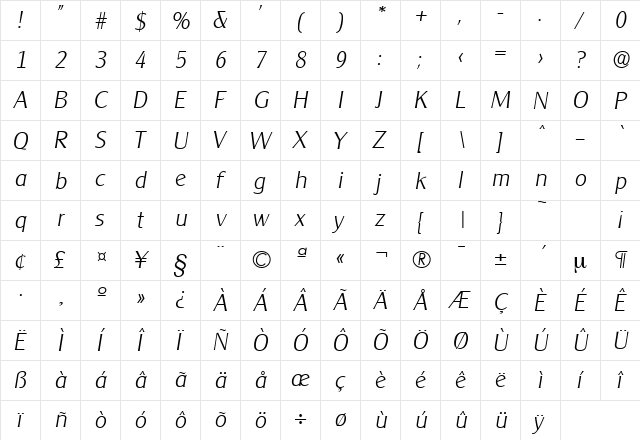
Cleargothic-Serial-ExtraLight RegularItalic Font Preview
Design Context for Cleargothic-Serial-ExtraLight Typeface
Cleargothic-Serial-ExtraLight has the quiet confidence of well-executed sans-serif typography: versatile, unobtrusive, and dependable at any size. The dynamic lean of this cut emphasises speed and emphasis in any layout. Its slender proportions lend an understated elegance to any composition.
Font Pairing: Works well alongside a characterful serif or display font that can carry the expressive load while Cleargothic-Serial-ExtraLight handles the functional copy.
Pro Tip: Use Cleargothic-Serial-ExtraLight with generous tracking and line-height for the most luxurious effect — light sans-serifs reward spacious, considered layouts.